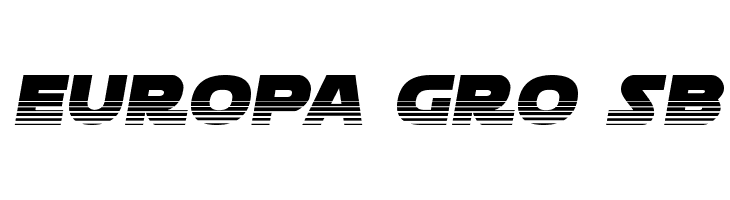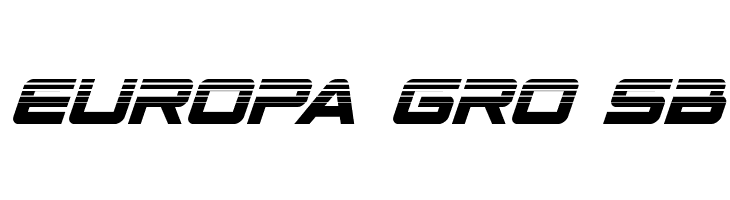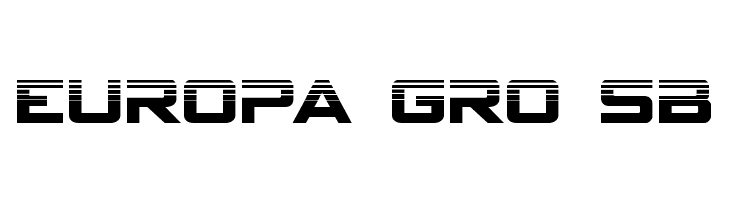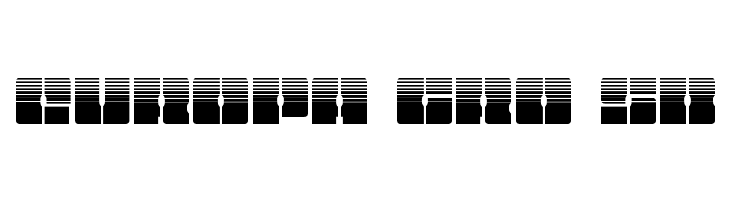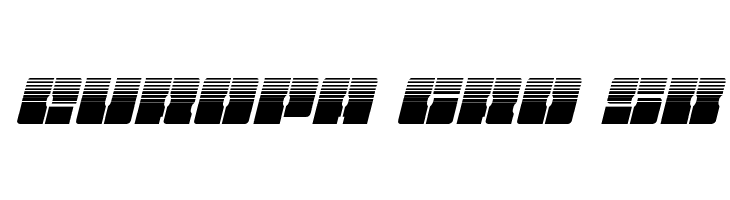
A bold, futuristic font with a halftone effect and geometric design.
A bold, dynamic font with a halftone effect and horizontal striping.
A bold, modern font with a halftone effect and strong horizontal lines.
A futuristic, bold font with a unique halftone pattern and geometric design.
A bold, italicized font with a futuristic halftone design, ideal for sci-fi themes.
A bold, italicized font with a futuristic halftone effect and sharp geometric design.
A bold, futuristic font with a halftone pattern and geometric precision.
A bold, halftone-patterned font with a modern, geometric style.
A bold, italicized font with a halftone effect, offering a dynamic and modern look.
A bold, italicized font with a futuristic halftone effect, perfect for dynamic designs.